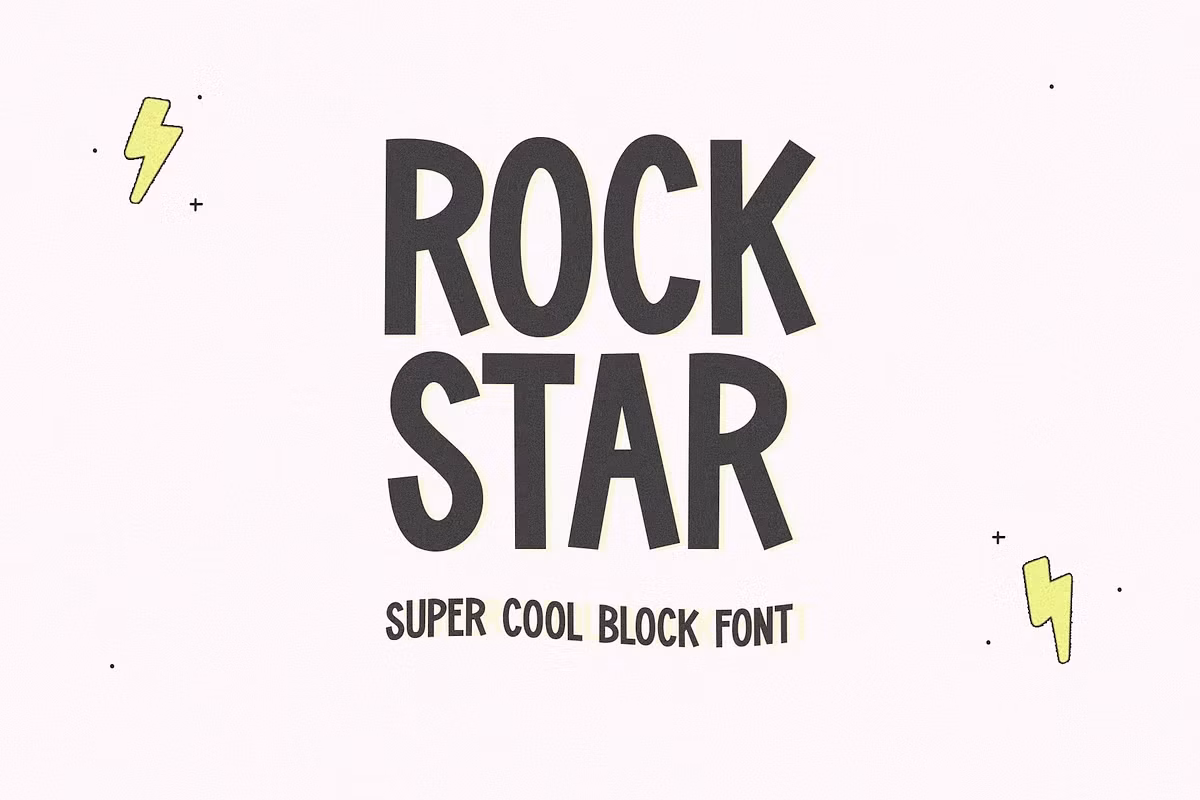
Rockstar | Cute Block Font Free Download
Rockstar | Cute Block Font Free Download is a fun and playful typeface that combines chunky letterforms with a soft, adorable vibe. Designed to grab attention while keeping things light-hearted, this font is perfect for kids’ projects, birthday invitations, toy packaging, educational materials, and cheerful branding. Its bold yet bubbly design makes it super readable and full of personality.
Whether you're designing for a children’s brand, playful merch, or social media graphics, Rockstar | Cute Block Font Free Download adds charm and friendliness to every letter. The geometric shapes and rounded edges give it a modern-meets-cute aesthetic that’s versatile and engaging.